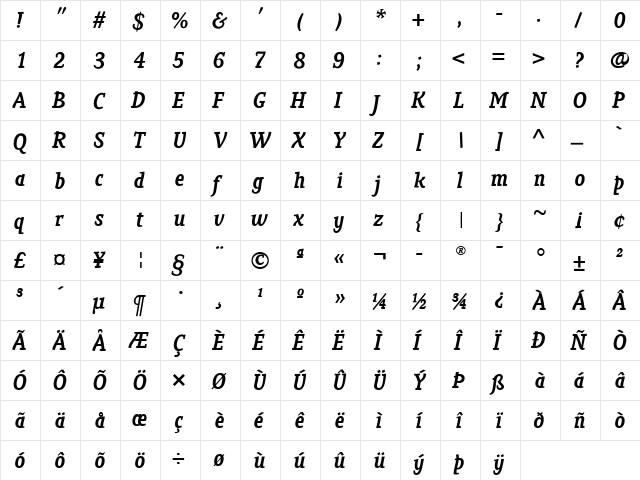
Poseidon Medium Italic
Design Context for Poseidon Typeface
Poseidon is a composed and adaptable typeface that performs quietly and consistently across a wide range of design contexts. The slanted form adds forward momentum and visual energy.
Pro Tip: Use Poseidon for emphasis, pull quotes, and subheadings where its slanted energy can add rhythm to the layout.